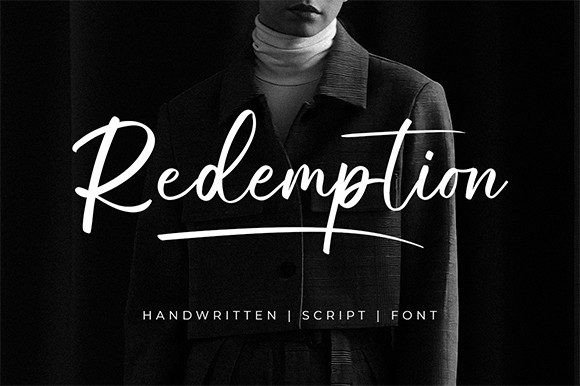
Voyage into the world of boundless creativity with Redemption Font, a masterful work of art from Bluestype Studio. Dive into a realm of unparalleled elegance, where the casual handwritten strokes of this font weave a tapestry of captivating beauty. Embark on a journey of visual exploration, guided by the uninhibited flow of Redemption's characters, each imbued with a touch of joy and a dash of natural charm.
Prepare to be mesmerized as Redemption transforms your designs into captivating masterpieces. Its versatility is a canvas for your imagination, allowing you to paint across a myriad of projects. Whether it's branding, logos, posters, or social media graphics, Redemption's presence elevates your creations, adding a touch of sophistication and intrigue.
Beyond its aesthetic appeal, Redemption possesses an emotional pull that resonates with audiences, drawing them into your visual narratives. It is a font that speaks to the heart, evoking a sense of nostalgia and intimacy. Its flowing lines and graceful curves create a sense of connection, making your designs more relatable and impactful.
Dare to break free from the mundane and embrace the extraordinary with Redemption Font. Let its elegant strokes guide you towards creating designs that leave an indelible mark. Immerse yourself in a world where beauty and functionality intertwine, and witness the transformative power that Redemption brings to your creative endeavors.